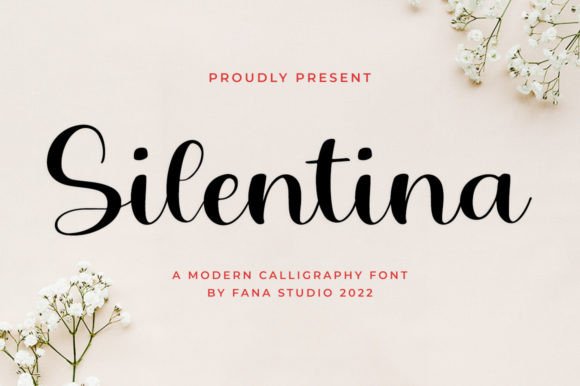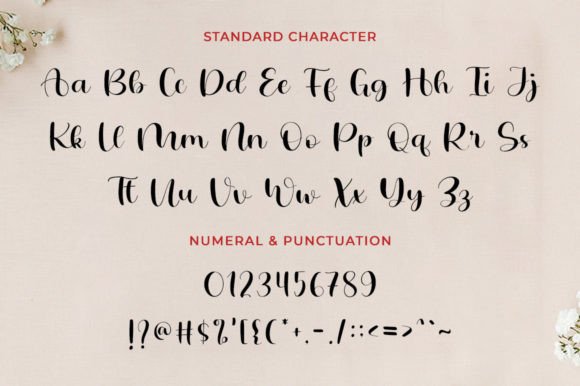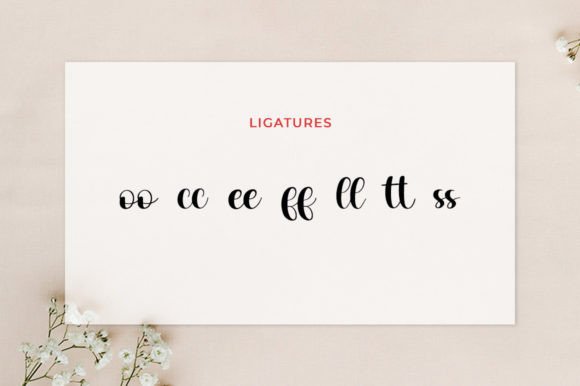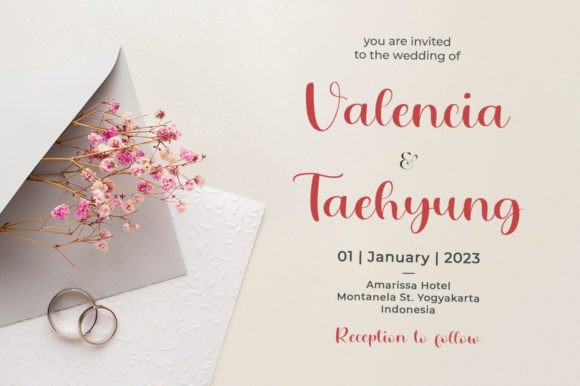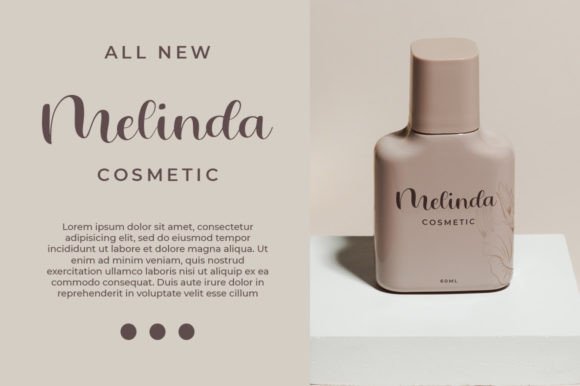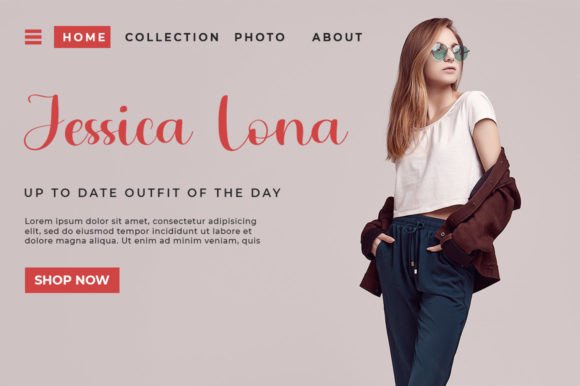
Silentina Font
About Silentina Font
Introducing Silentina, an enchanting handwritten font that effortlessly captivates with its romantic charm. This versatile script font transcends various applications, making it a delightful choice for greeting cards, headlines, and beyond. Silentina is more than just a font; it’s a design element that infuses a romantic feel into your projects, creating a captivating and memorable aesthetic.
The enchanting nature of Silentina lies in its handwritten style, bringing a touch of authenticity and warmth to your text. Whether you’re expressing heartfelt sentiments on greeting cards or making a bold statement in headlines, this font adapts seamlessly, adding a romantic and personal touch.
Imagine Silentina gracing your greeting cards, conveying love and emotions with every stroke. Visualize it making headlines that draw attention and evoke a sense of romance. The versatility of Silentina allows it to effortlessly complement various design contexts, making it a valuable asset for your creative endeavors.
In summary, Silentina is a font that goes beyond its functional role; it’s a romantic storyteller that breathes life into your text. Embrace its enchanting handwritten style confidently, knowing that it has the power to add a touch of romance to your diverse projects. Let Silentina be the choice that elevates your designs, leaving a lasting impression with its captivating and versatile charm.